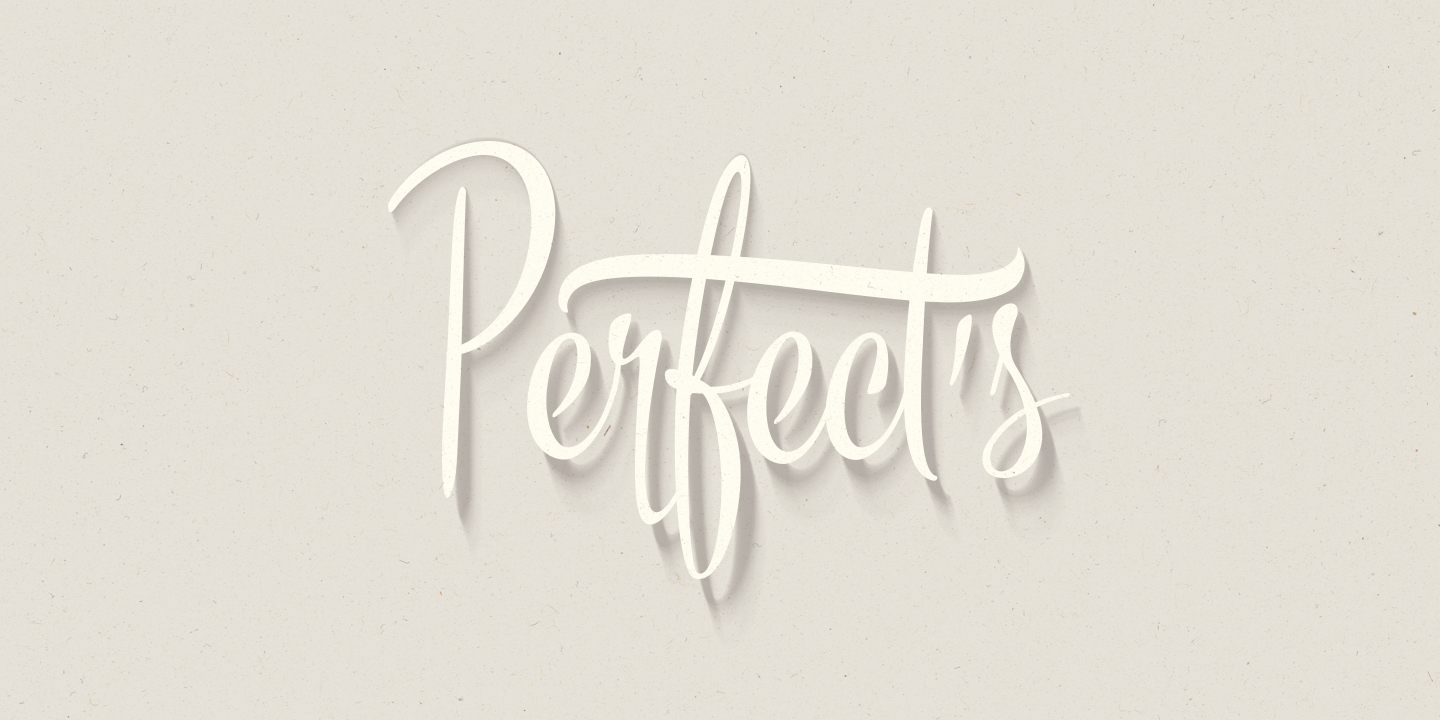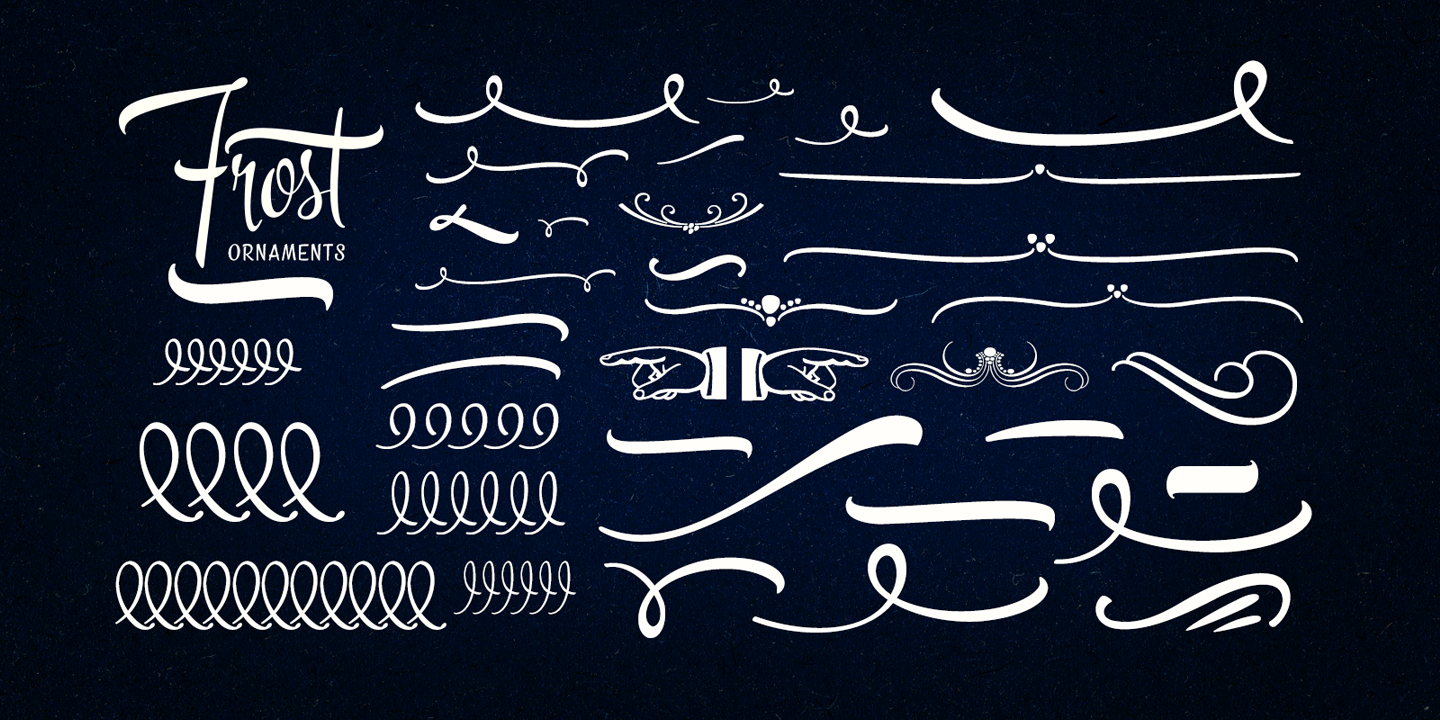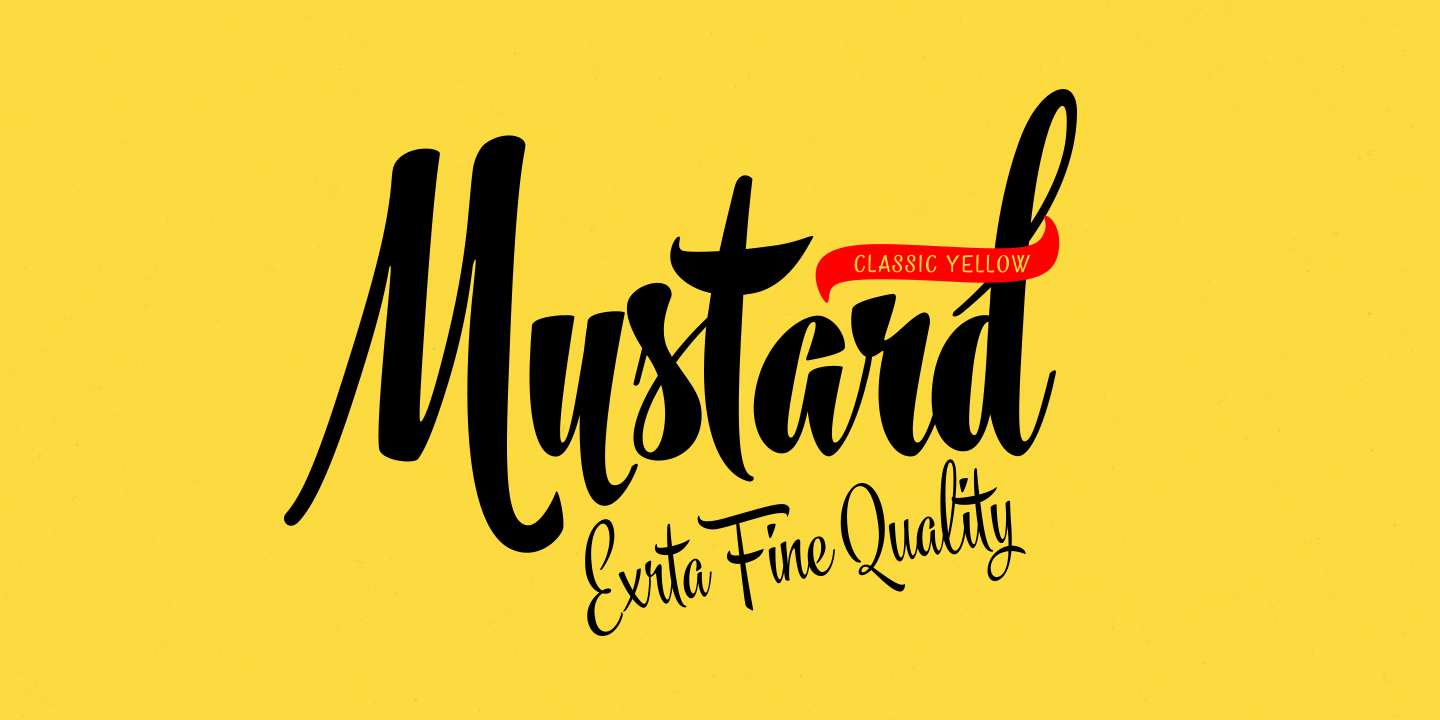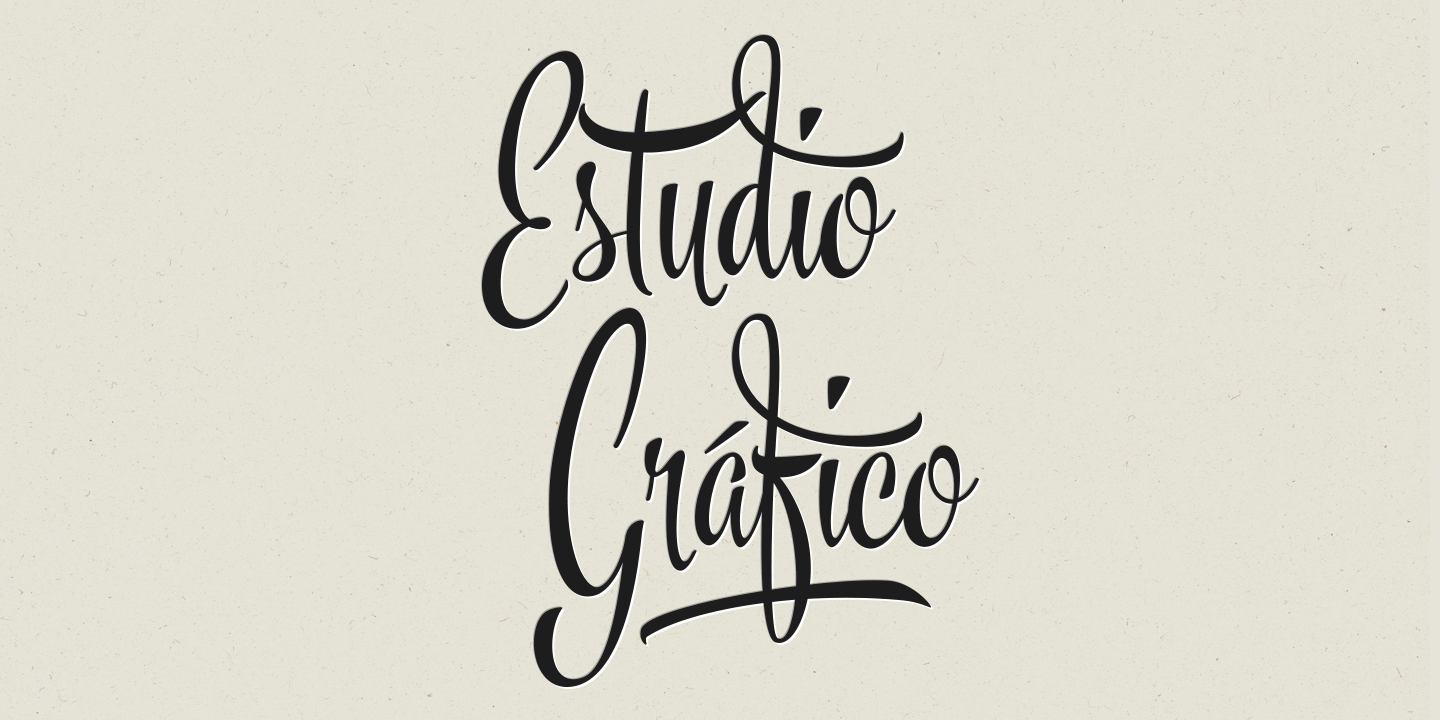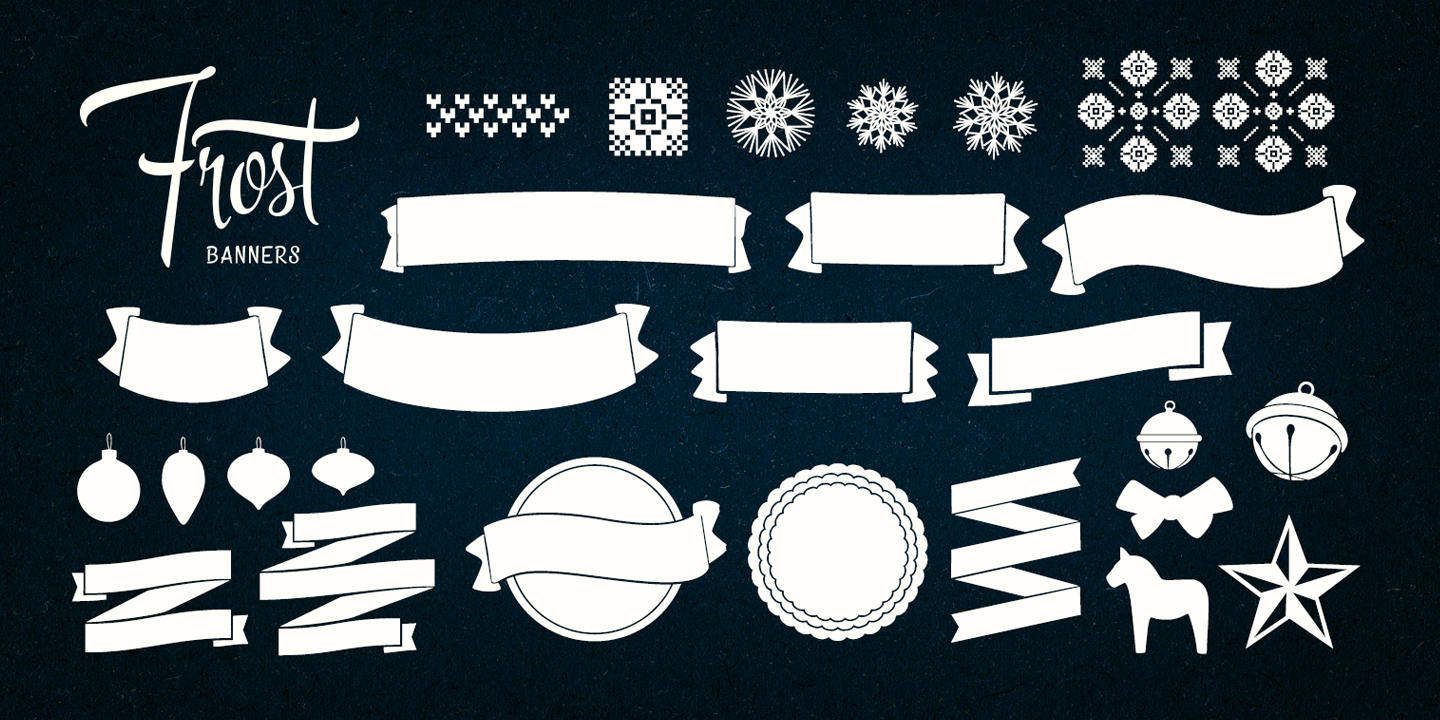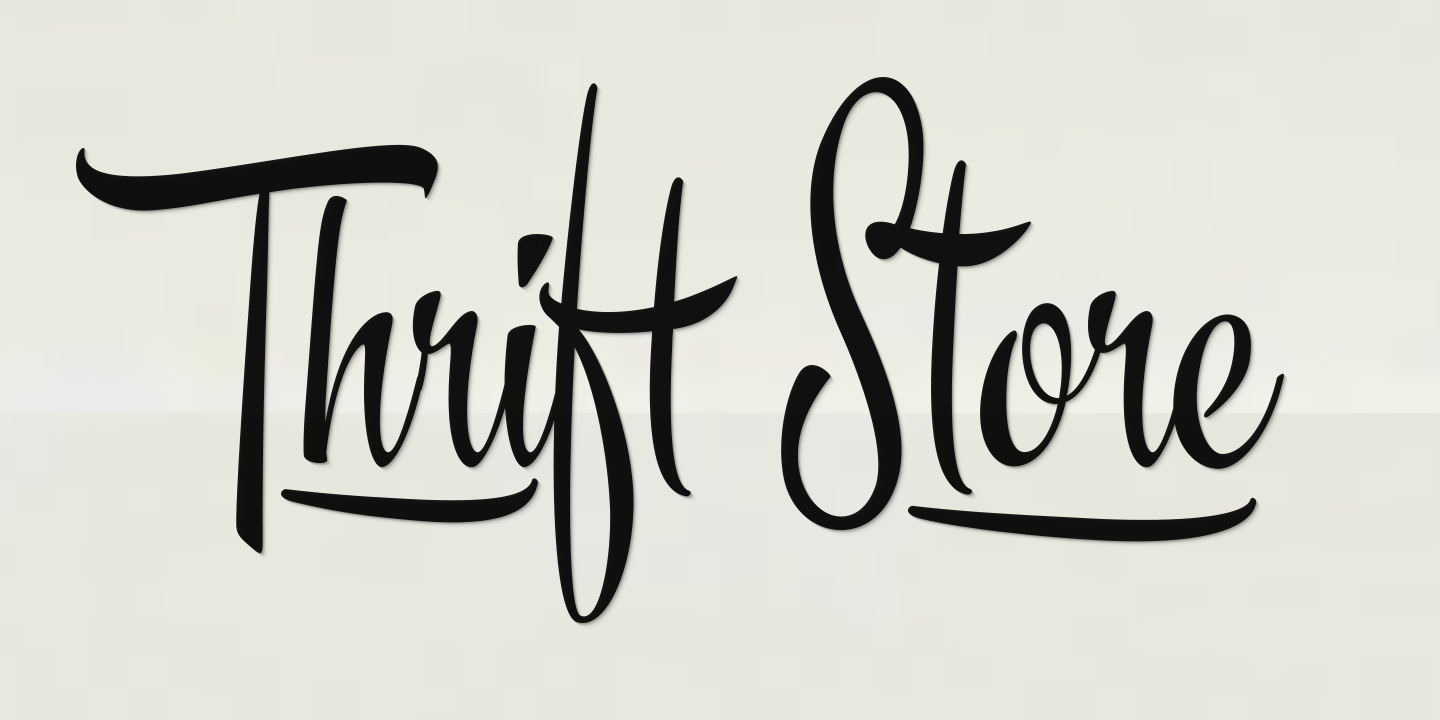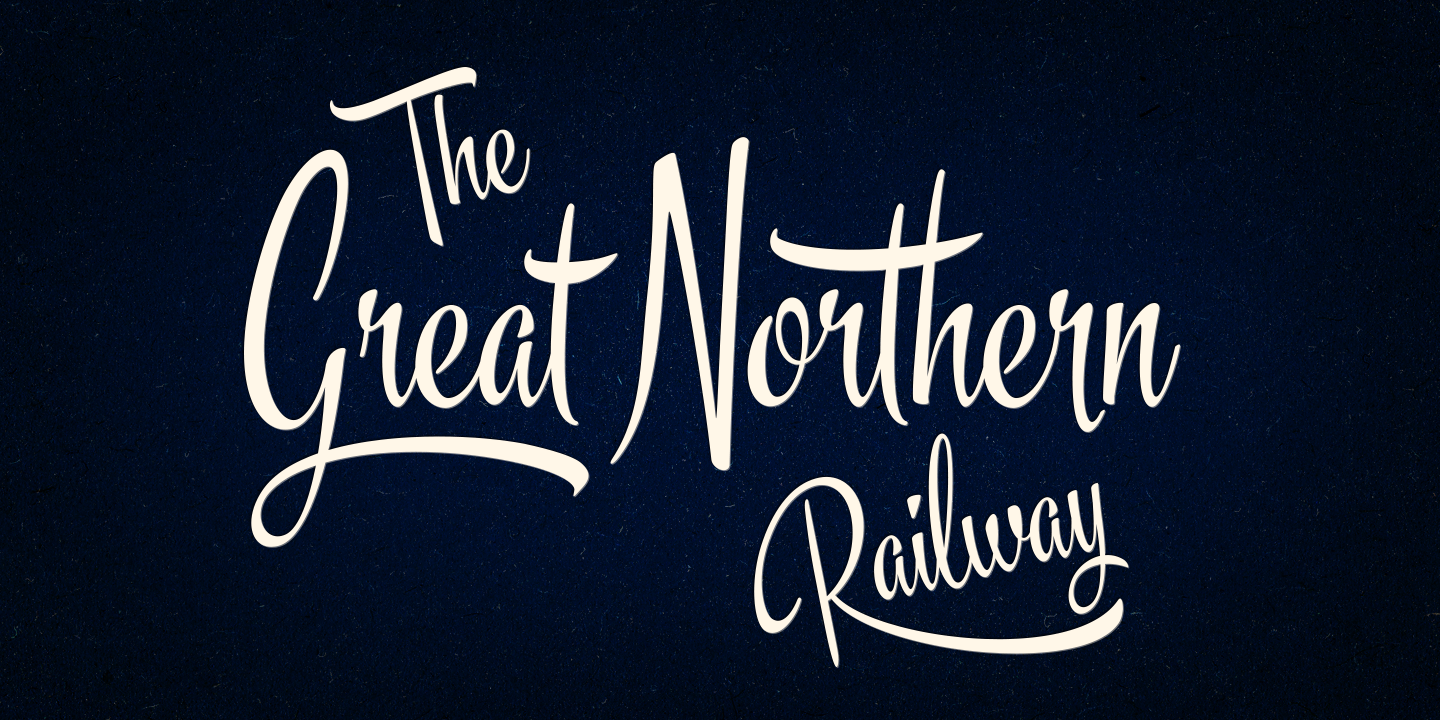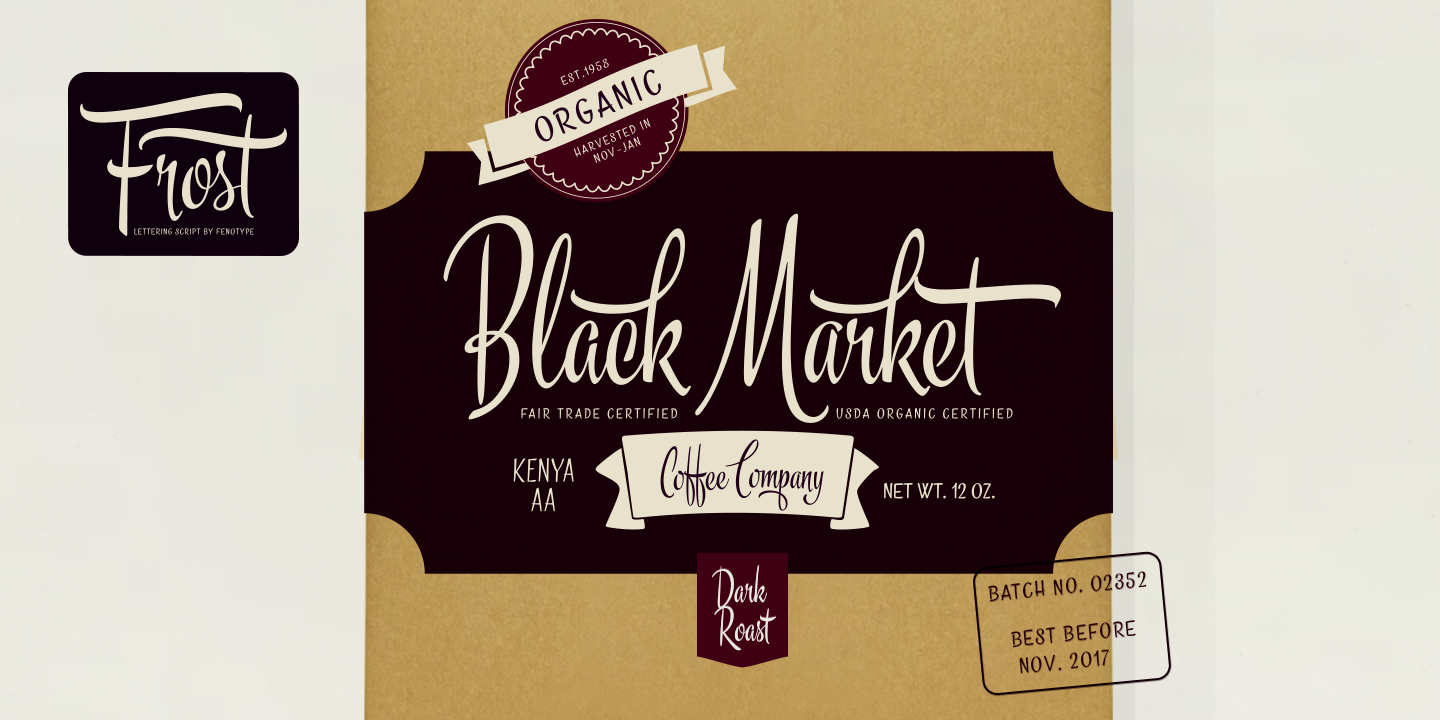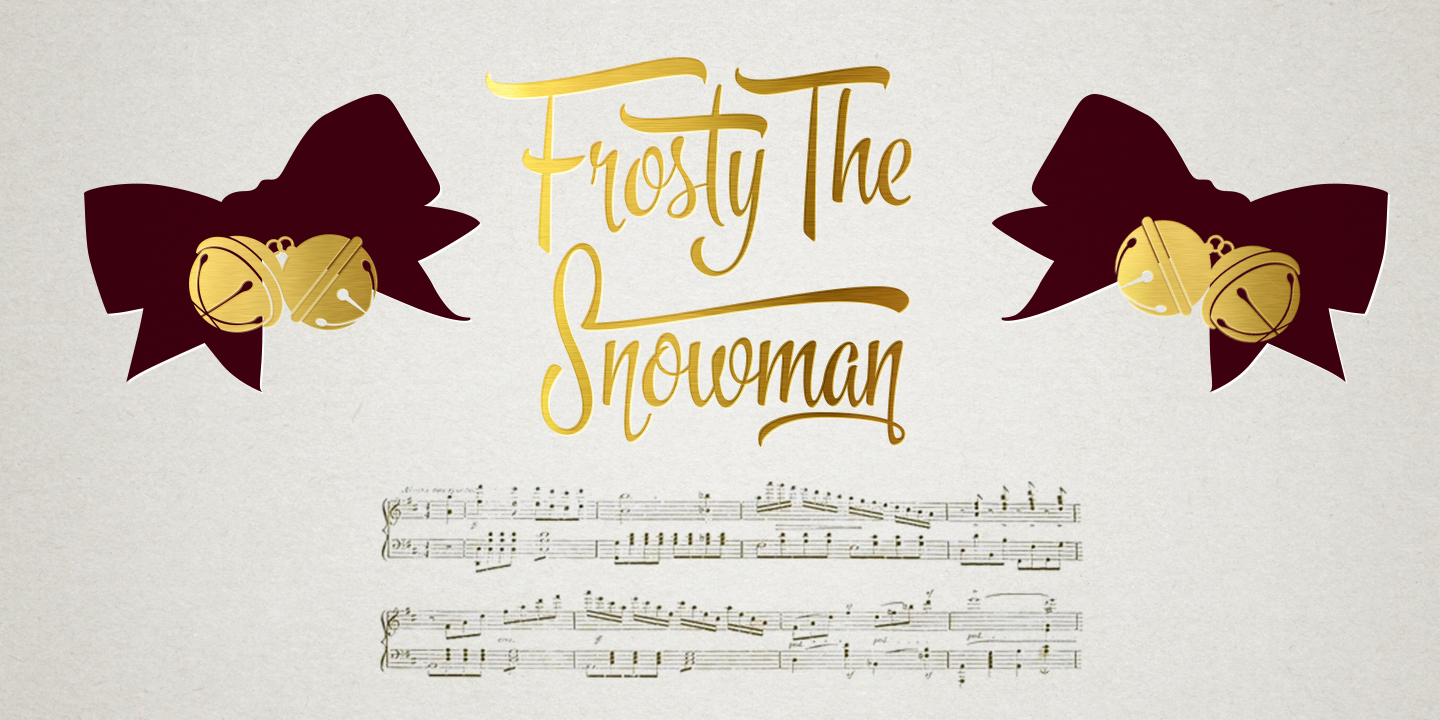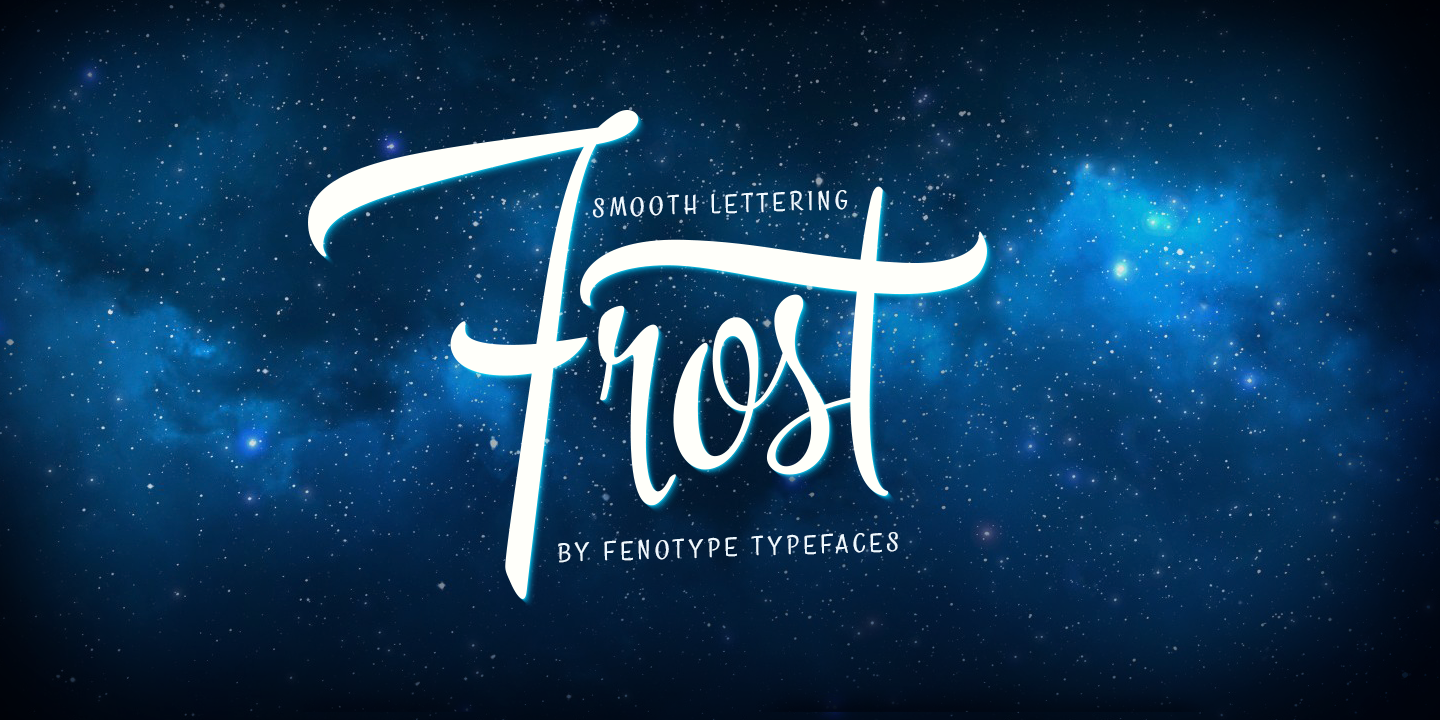
Frost is equipped with loads of automatic ligatures to make the text better flowing and has a minimum of three alternatives to every basic letter: To activate the alternates click on Swash, Stylistic or Titling Alternates in any OpenType Savvy program or manually choose from even more alternate characters from the Glyph Palette.
Frost is an effective and easy to use font family for creating ambitious headlines, logos & posters with a custom-made feeling.